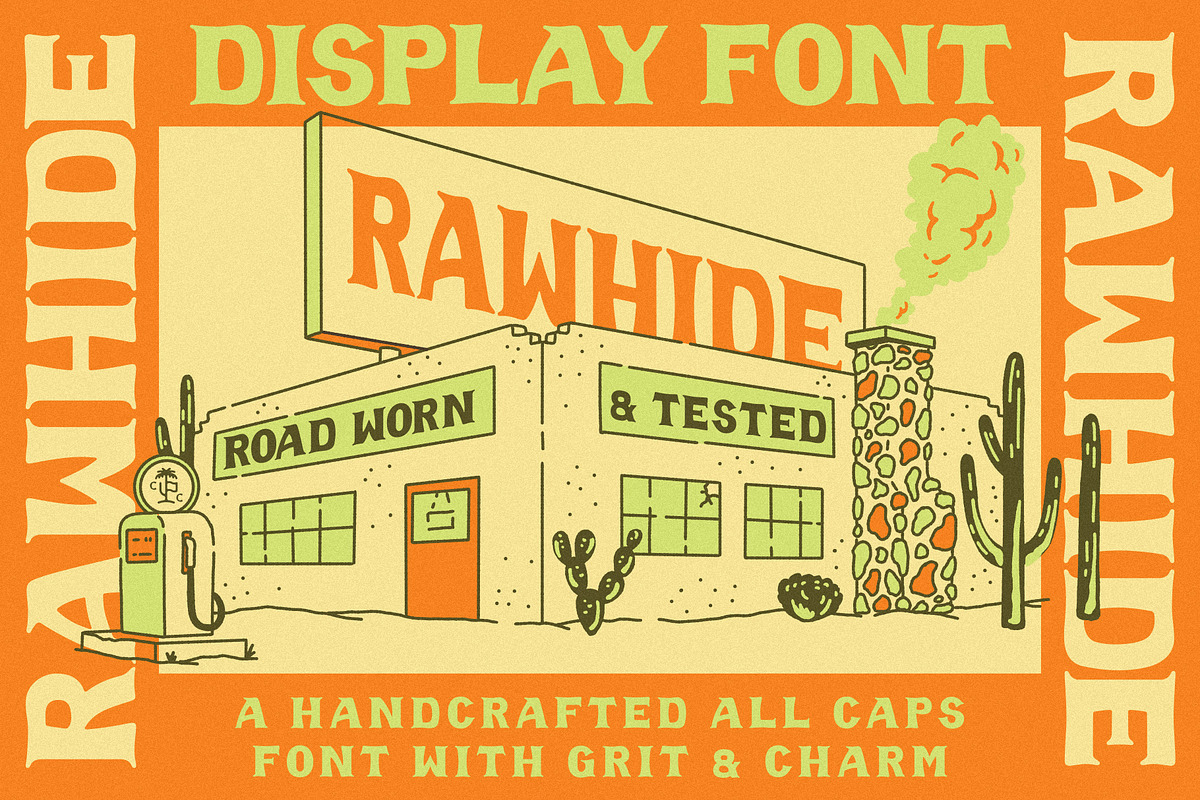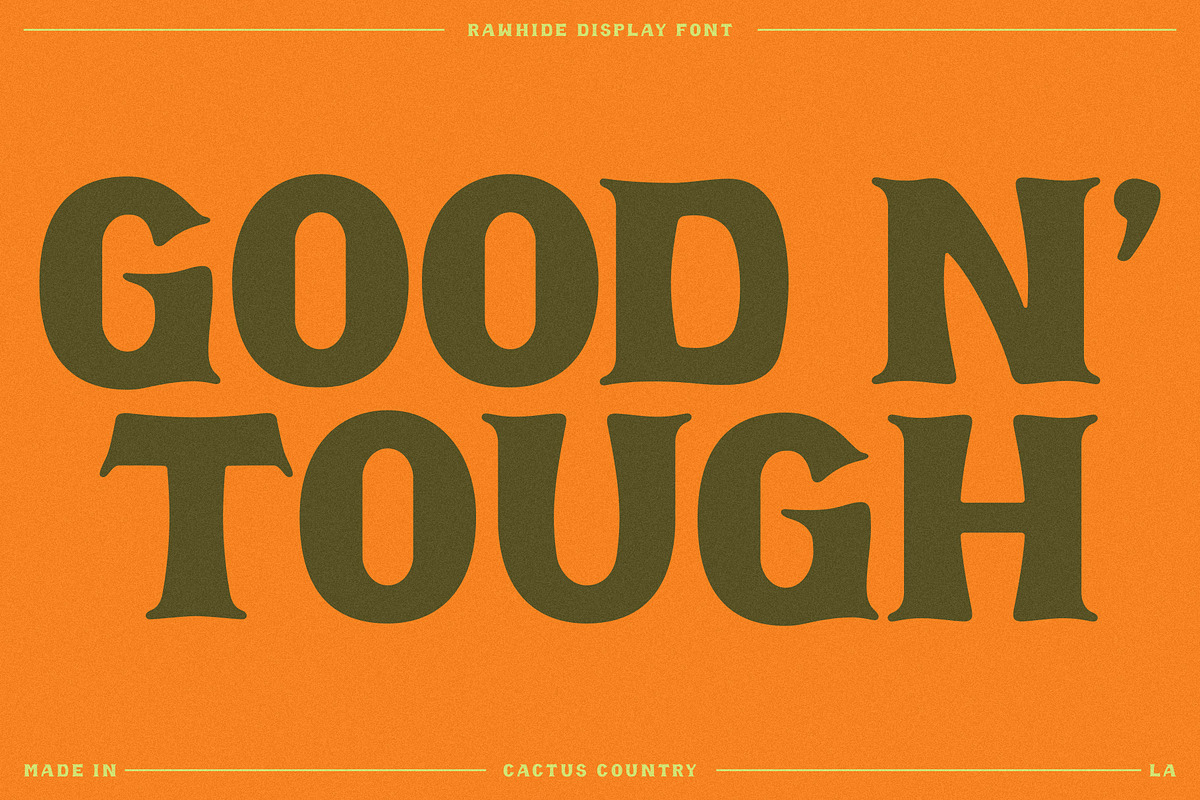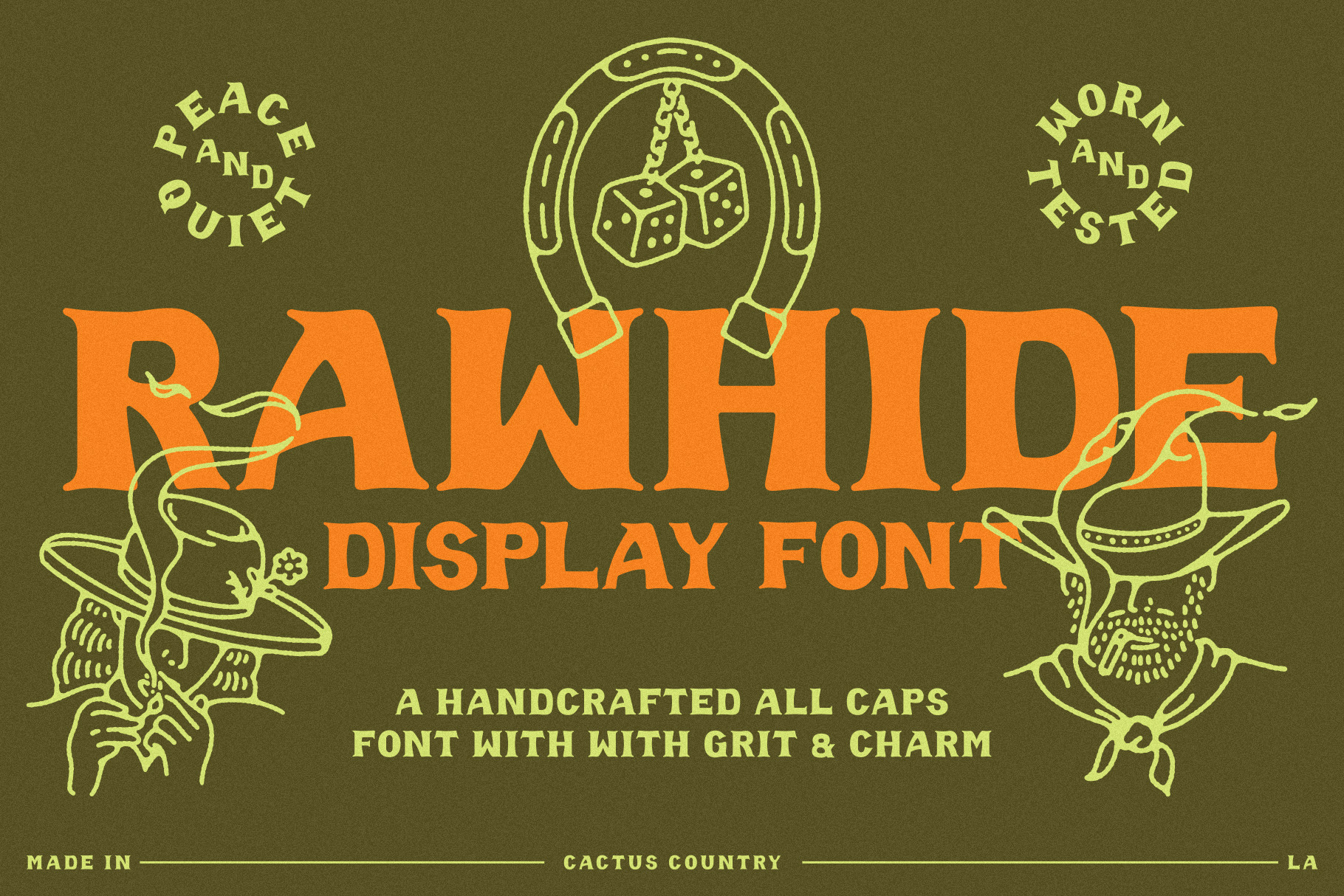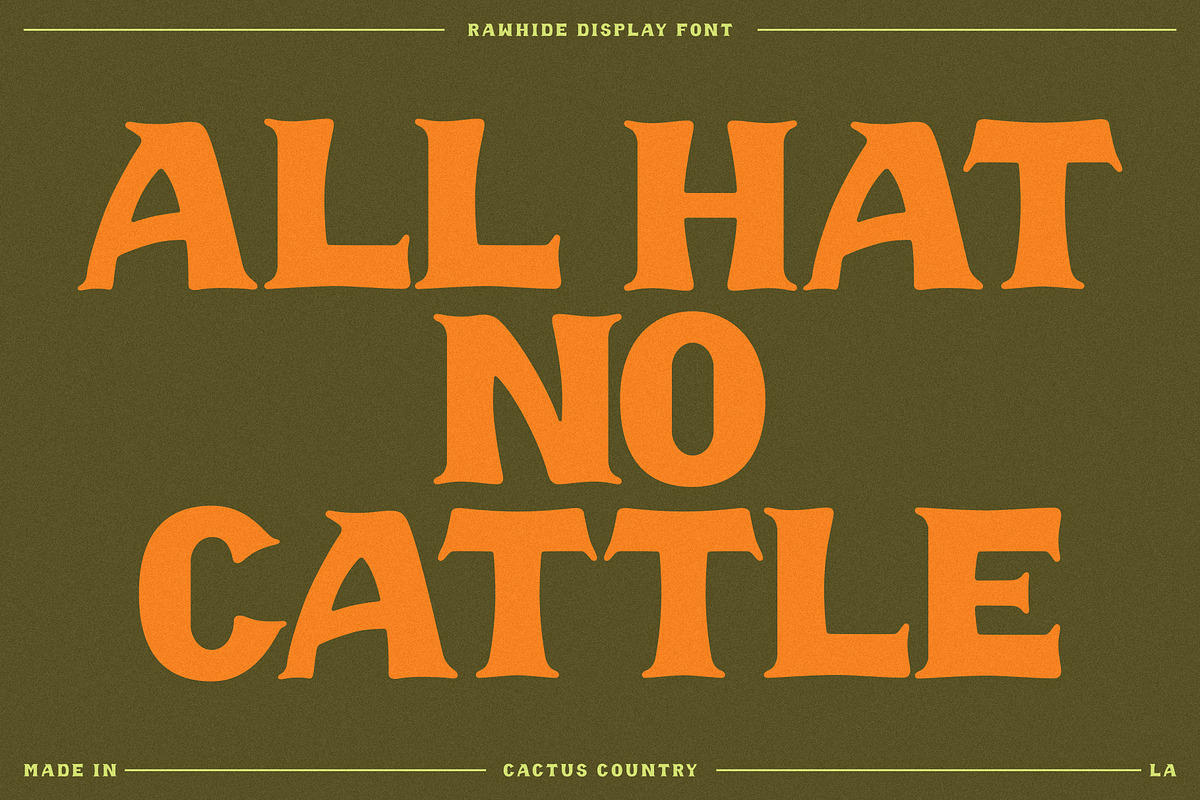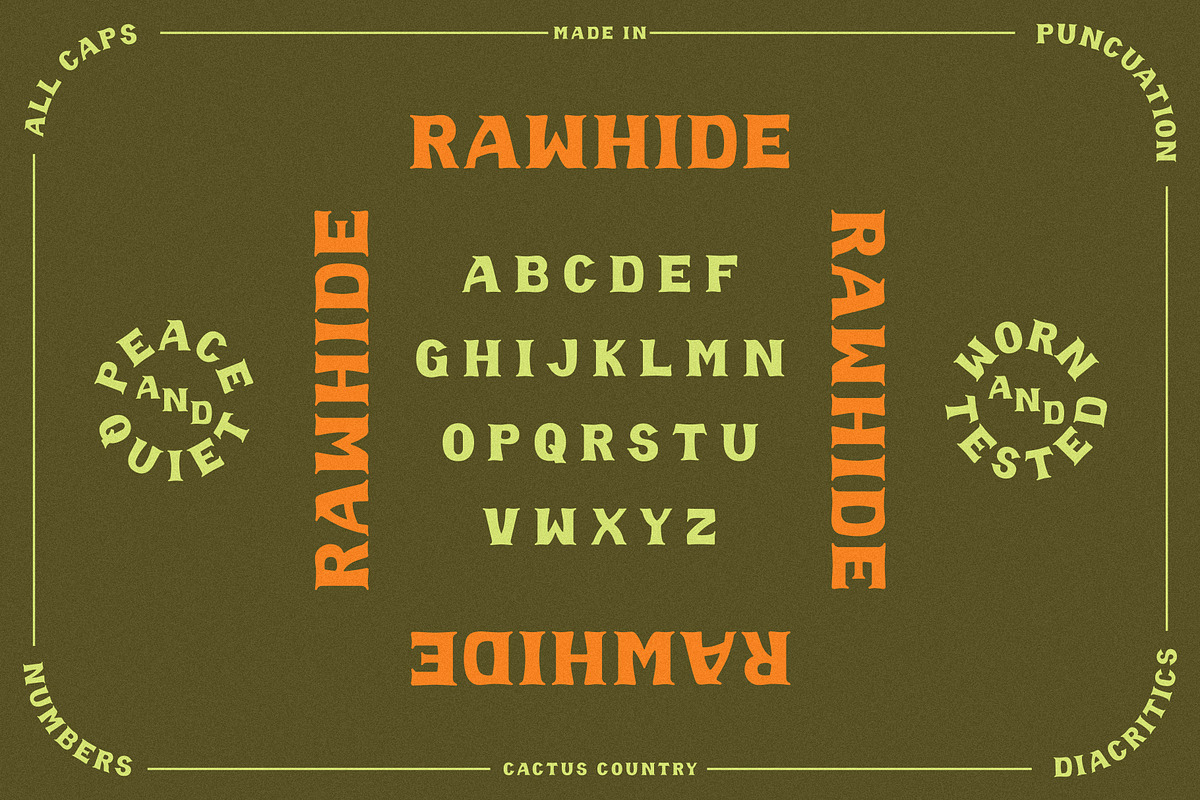
Rawhide Display Font
Rawhide is a western, all-caps hand drawn display font built with charm and grit. Rounded at the edges with bold, contrasting weight, the letterforms flow like a cool desert breeze, melting in a sun-soaked afternoon.
Great for branding, packaging design, merch collections and hand drawn illustration needs.